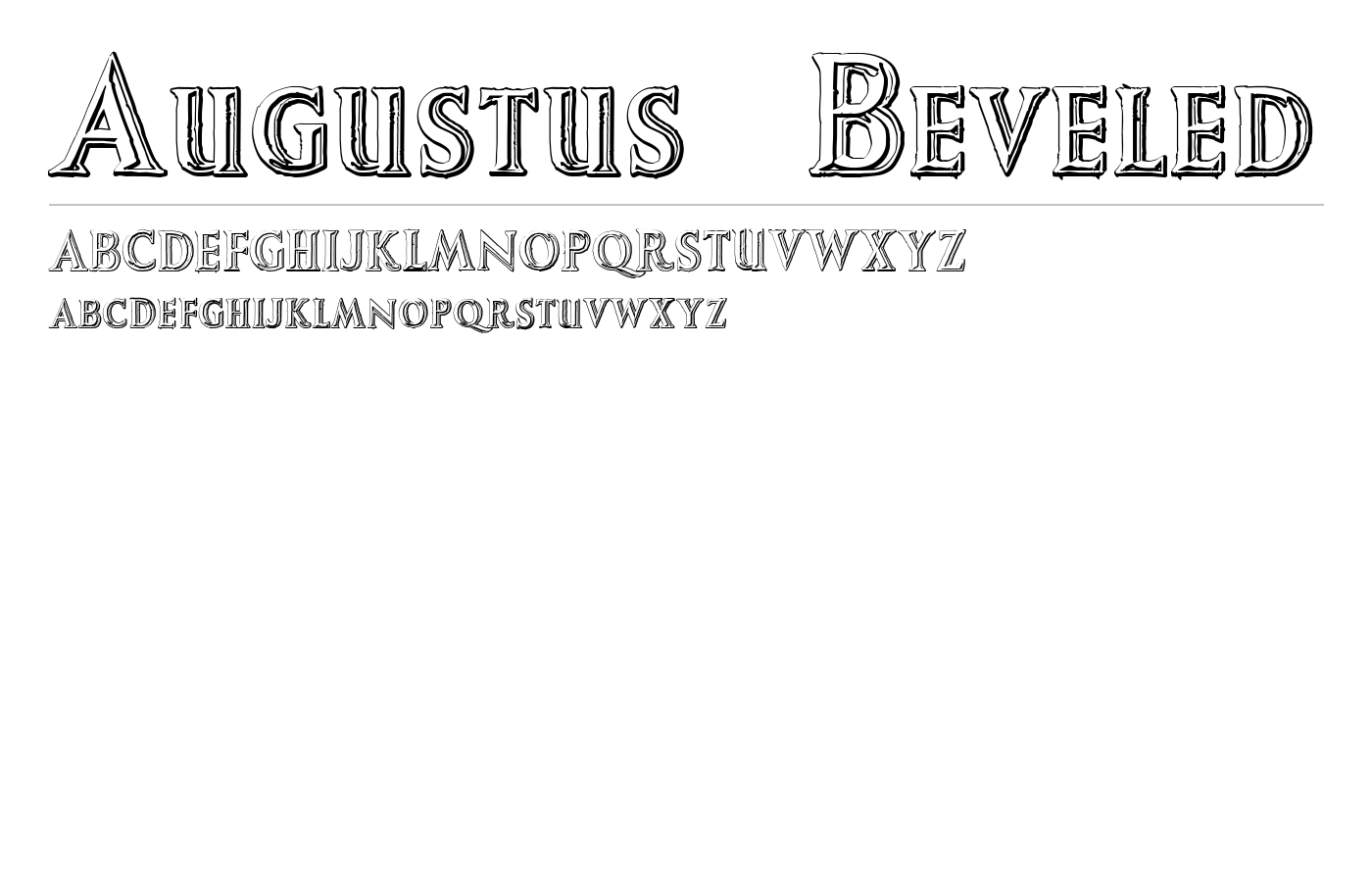
Augustus Beveled is a decorative serif font characterized by its strong, beveled edges and classic Roman-inspired letterforms. Its bold, textured appearance with sharp contrasts and intricate detailing makes it well-suited for vintage, heritage, or formal design contexts such as logos, headlines, and packaging where a feeling of tradition and craftsmanship is desired. This font stands out for creating a striking, elegant impression while maintaining readability in display uses.
Augustus Beveled Font
About Augustus Beveled Font